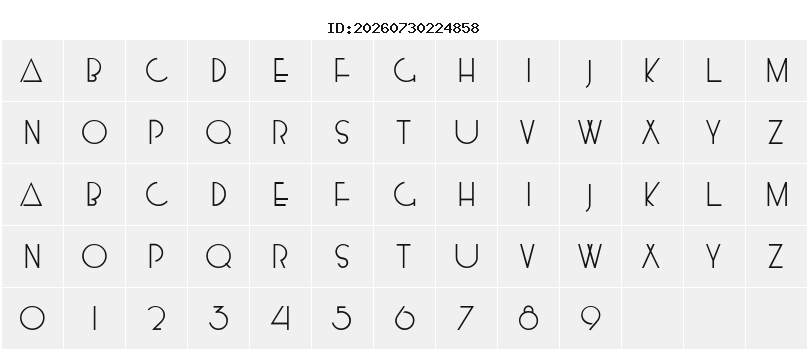
LosAngles Preview
• Font Name: LosAngles
• Full Font Name: LosAngles
About LosAngles.ttf
LosAngles.ttf is a modern, elegant sans-serif font designed for ultimate readability and visual harmony. Perfect for branding, headlines, web design, and print materials.